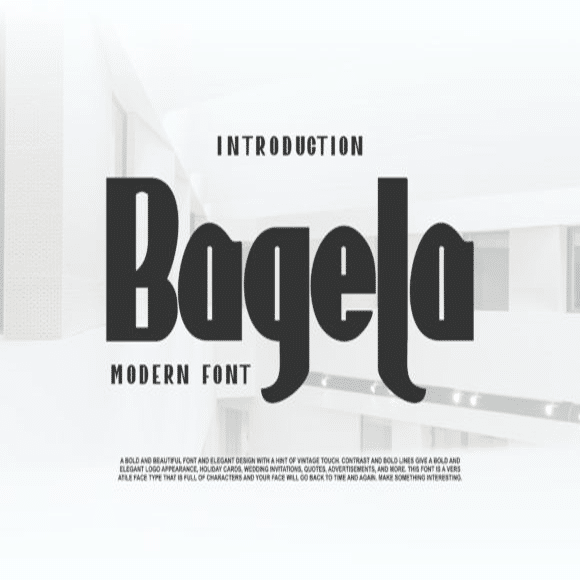
Bagela is a bold sans serif font, carefully handcrafted to become a true favorite. Its casual charm makes it appear wonderfully down-to-earth, readable and, ultimately, incredibly versatile. This font will look outstanding in any context, whether it’s being used on busy backgrounds or as a standalone headline!